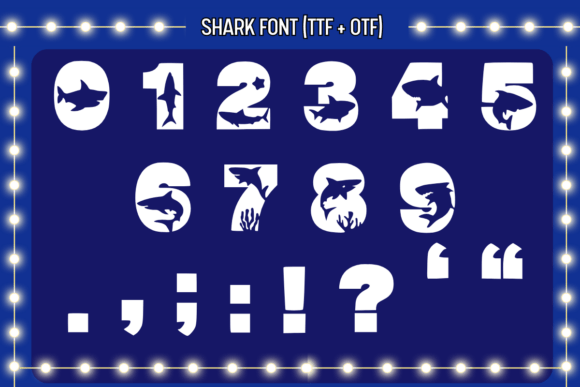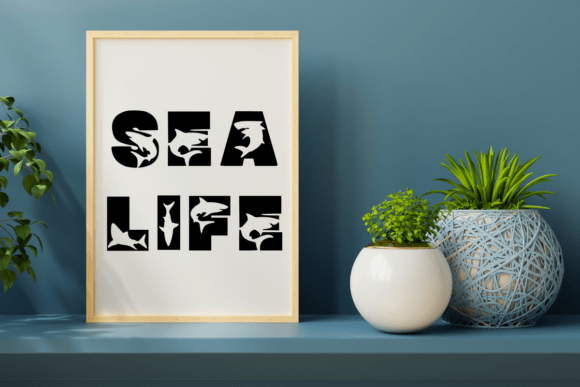
Shark Font Font
Sharkis a unique and interesting decorative font. A little bit quirky, this font looks incredibly adept on a wide variety of contexts!